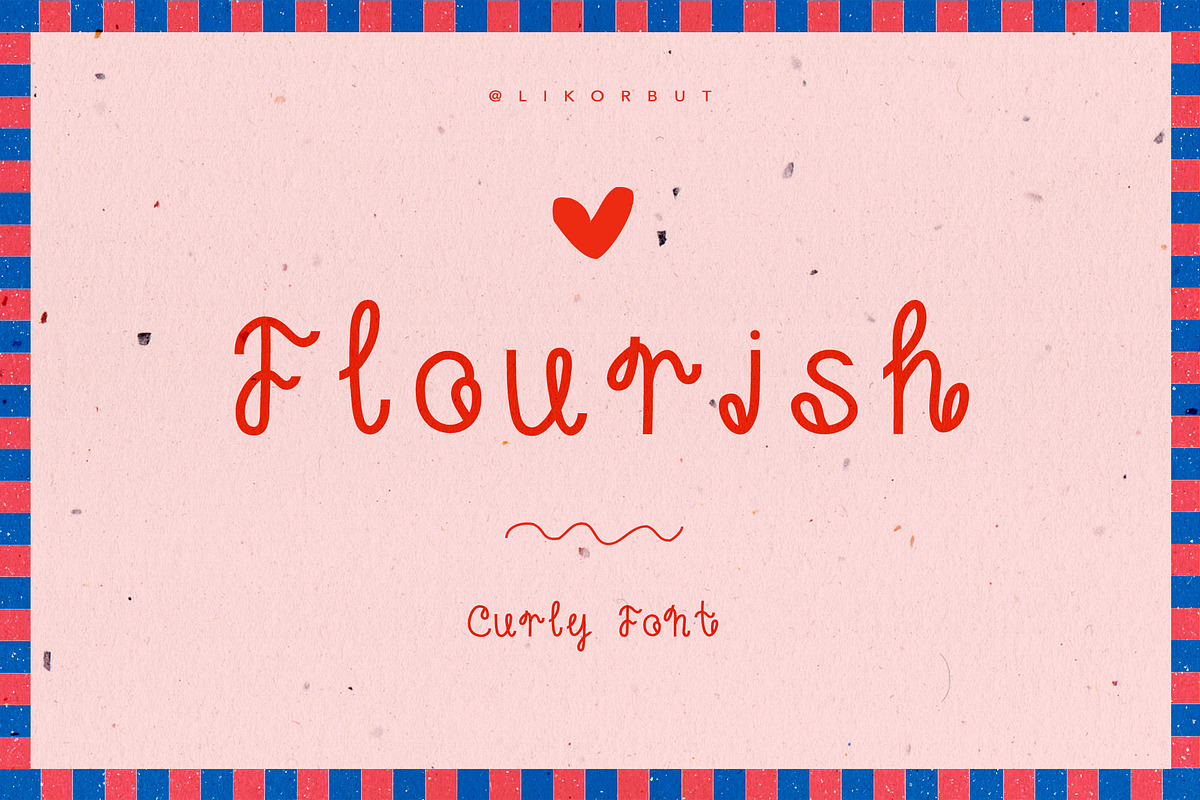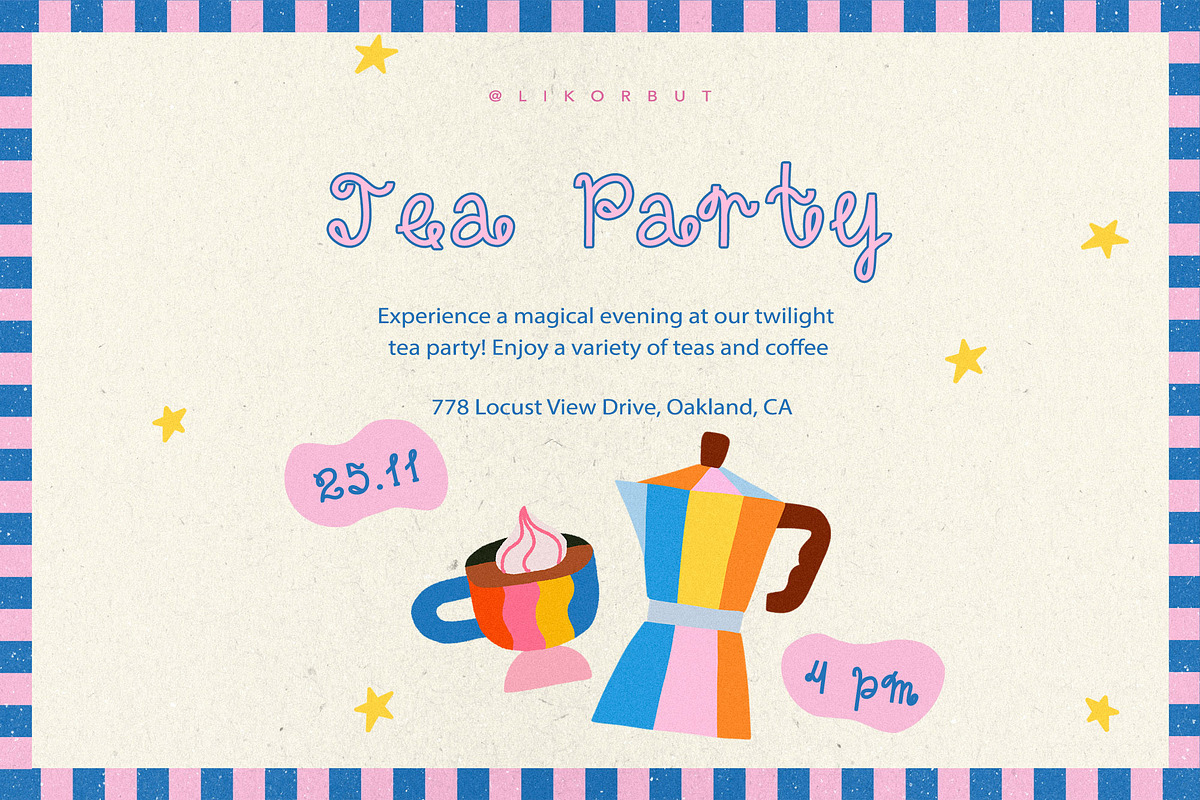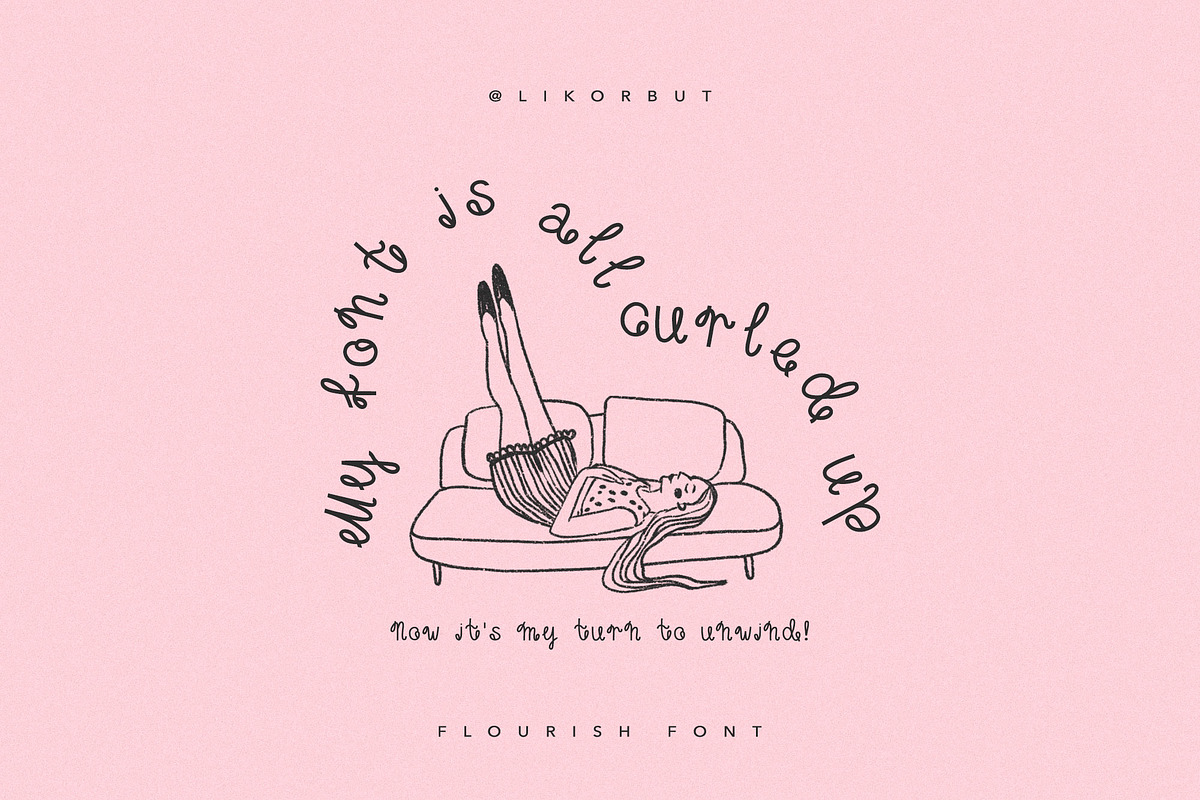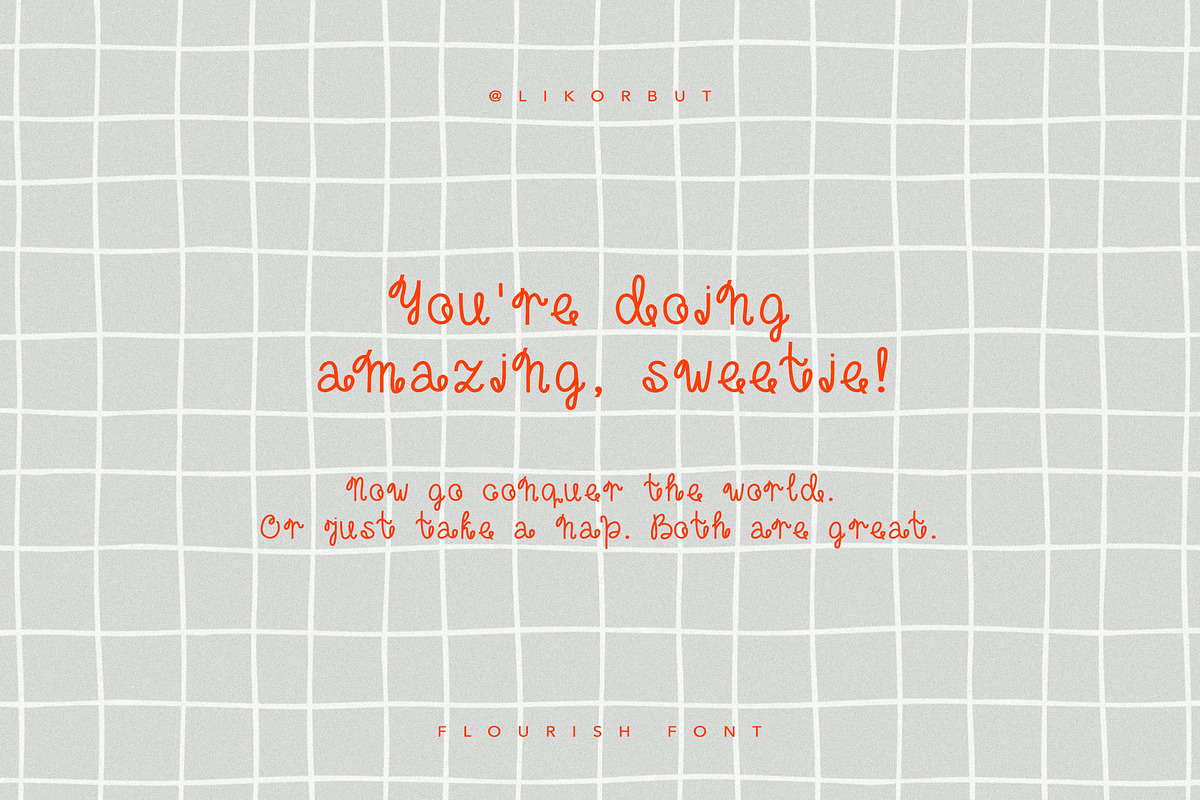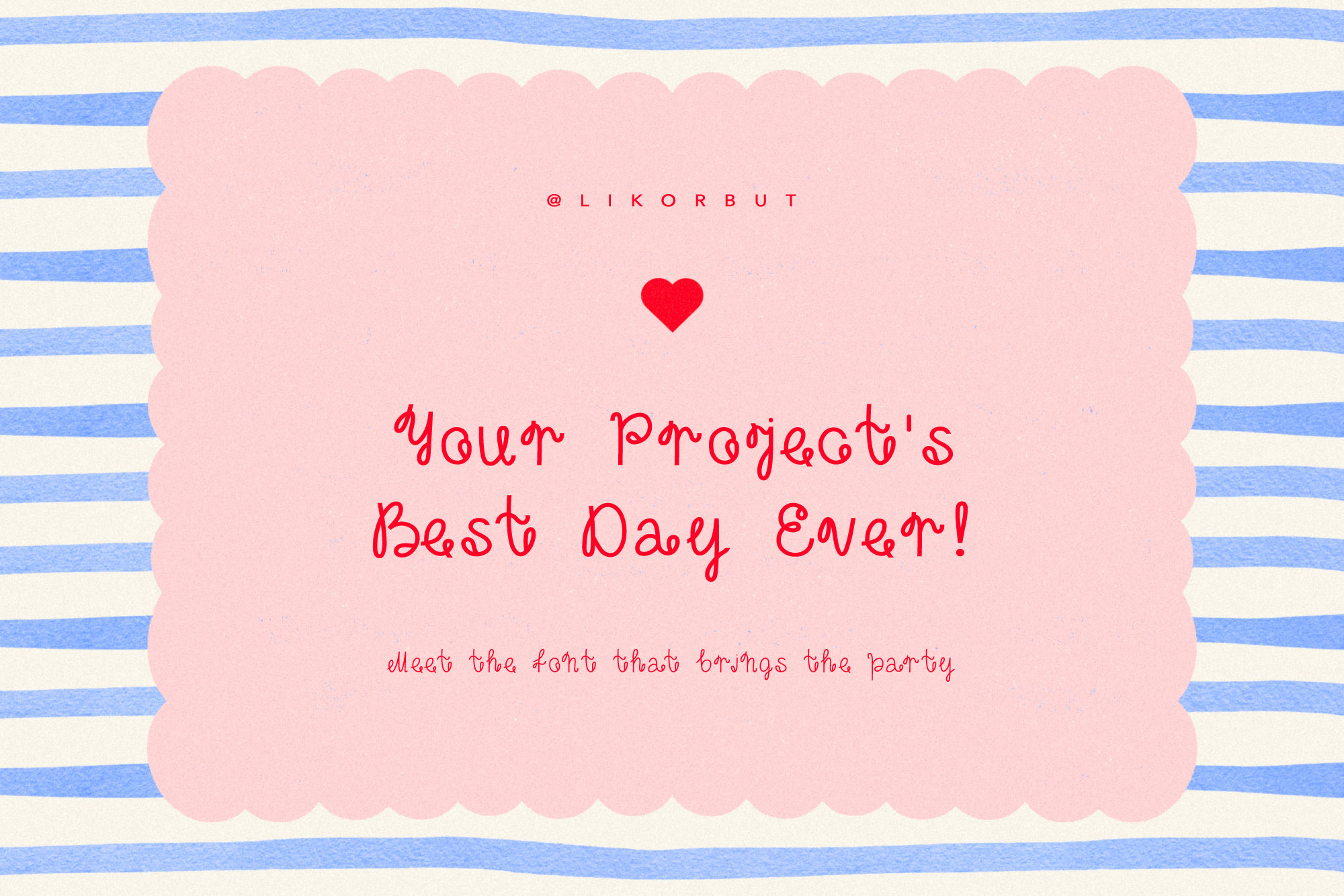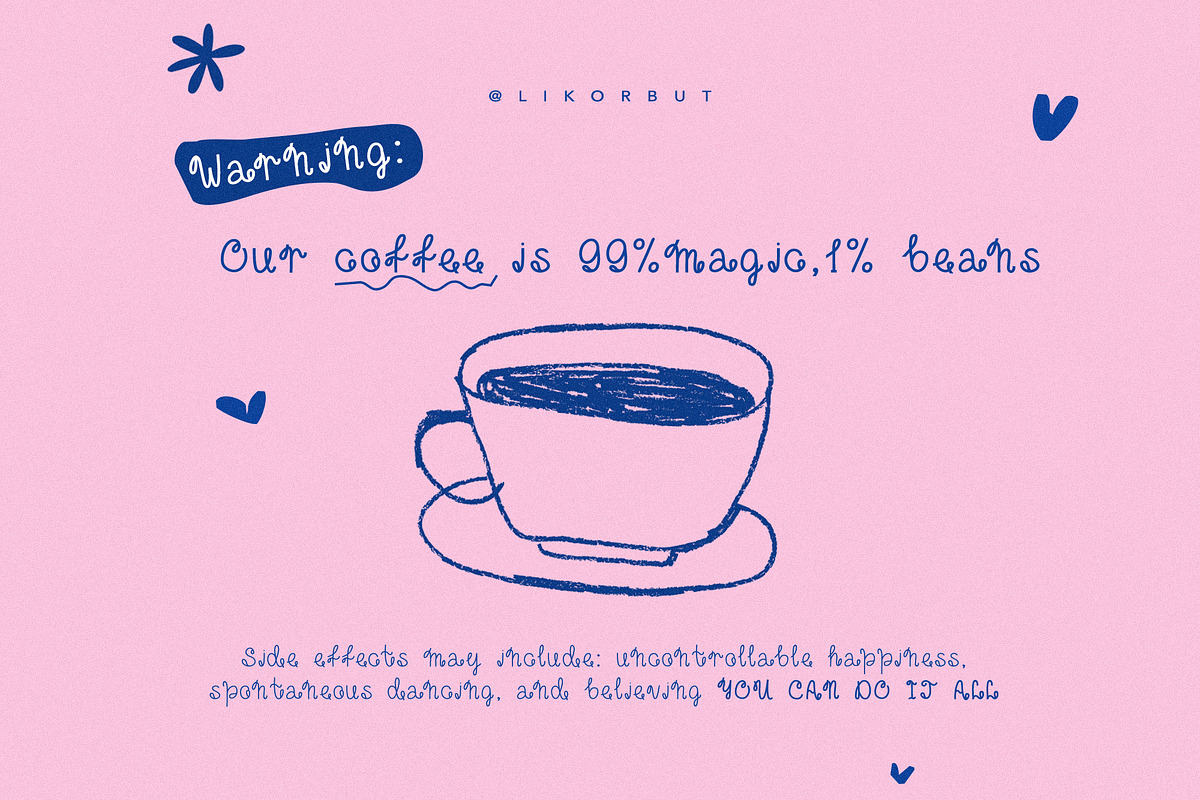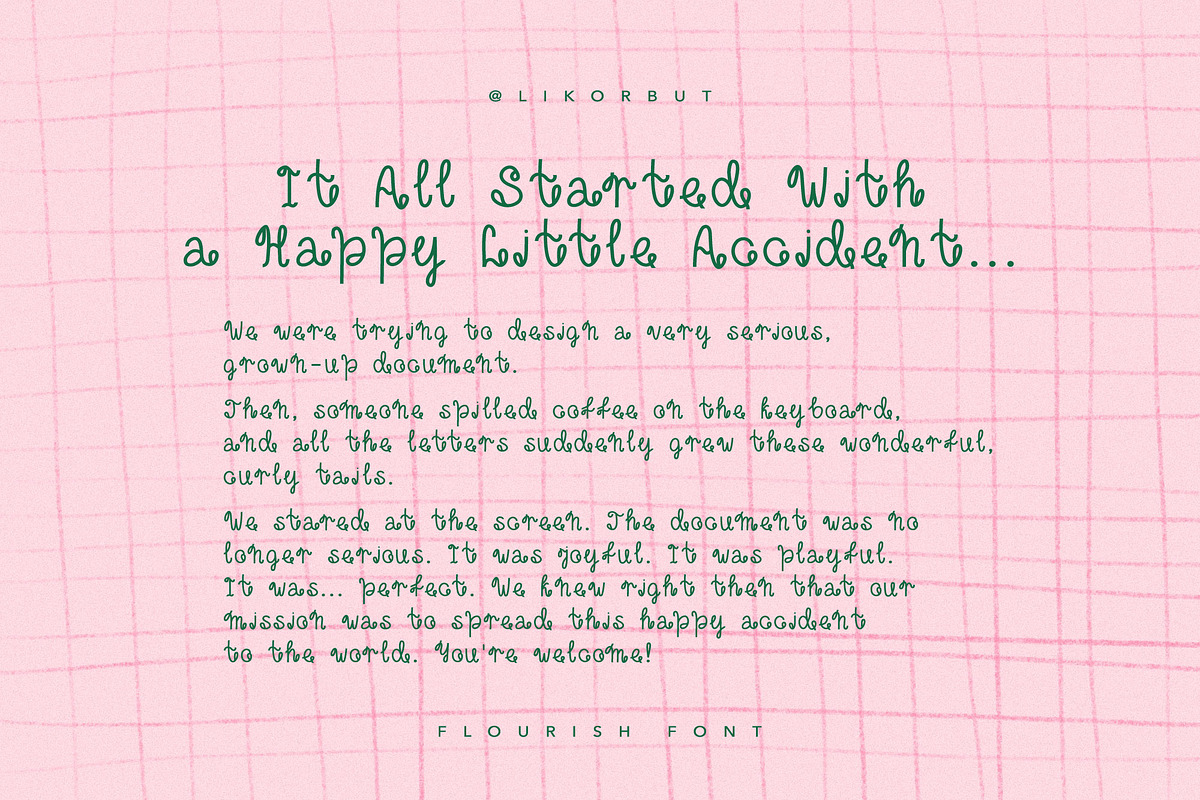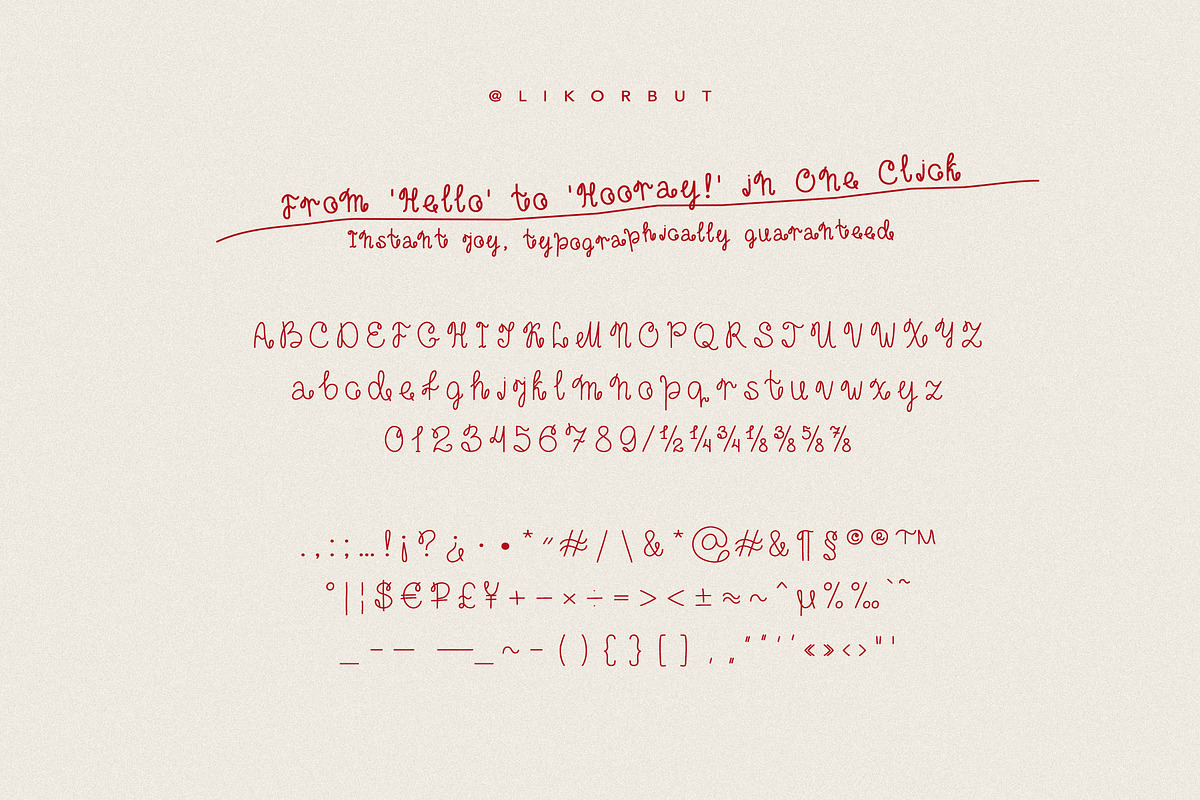
Flourish Curly Script Font
Say hello to FLOURISH – the font that skipped the boring lecture and went straight to the party! This playful, swirly handwritten typeface is bursting with joy, making it the perfect partner for illustrations, greeting cards that sparkle, invitations that pop, and branding that’s simply too fun to ignore.
Available in three cheerful weights – Light, Regular, and Bold – so you can pick the perfect level of whimsy for your next masterpiece.
Font includes Uppercase & Lowercase Letters; Numbers, Symbols & Punctuation